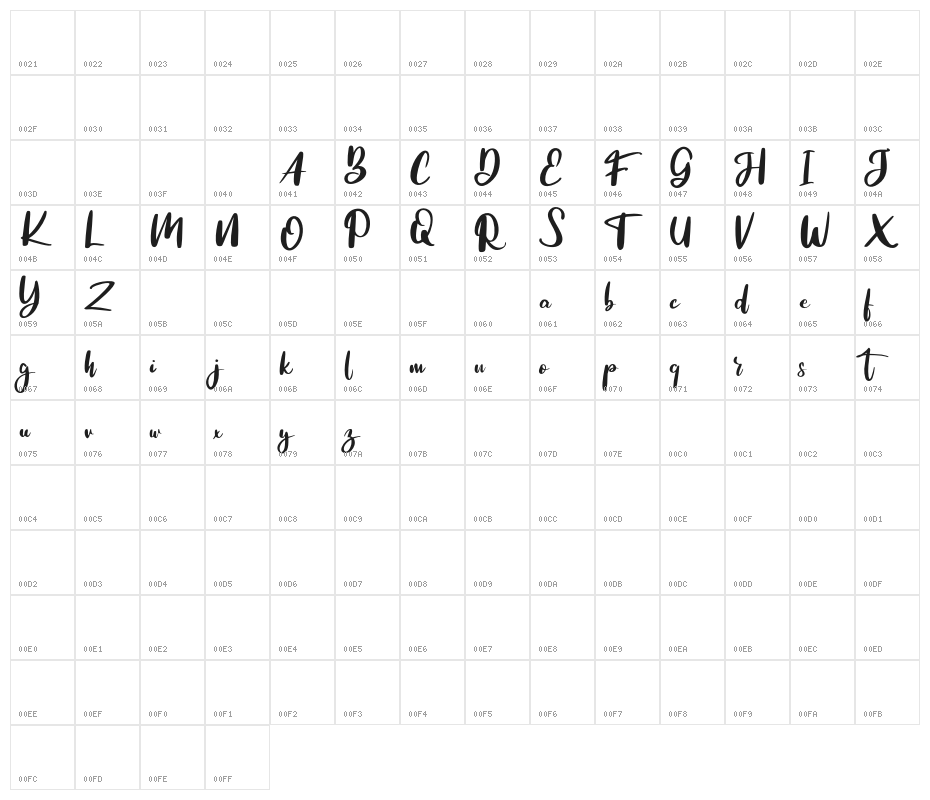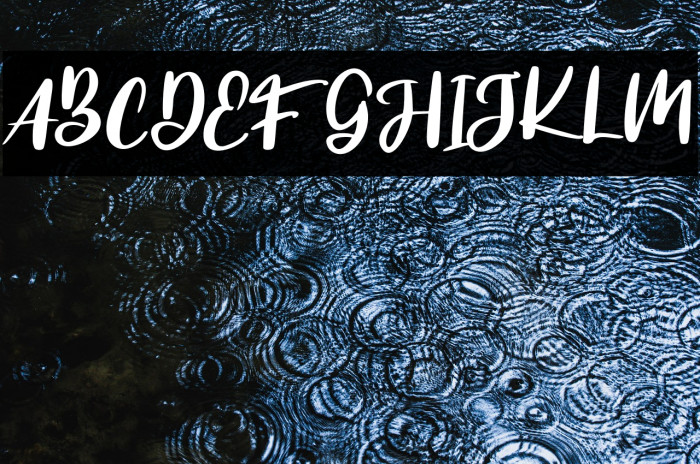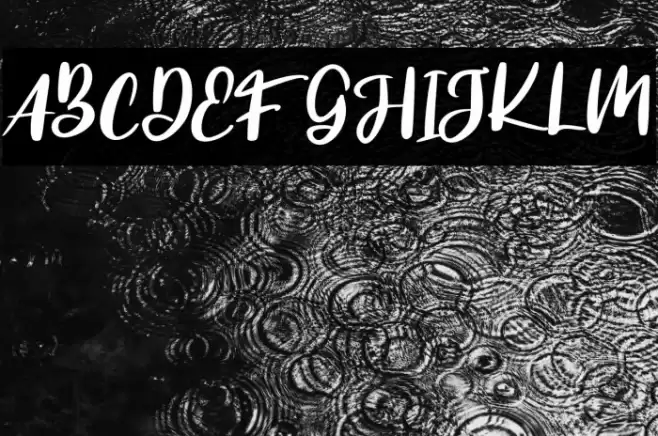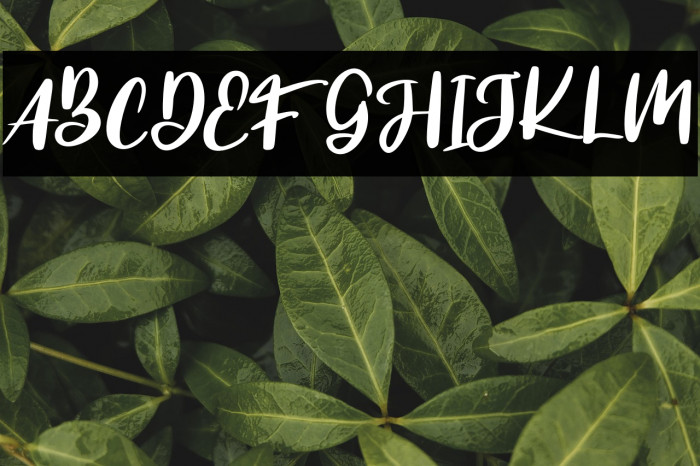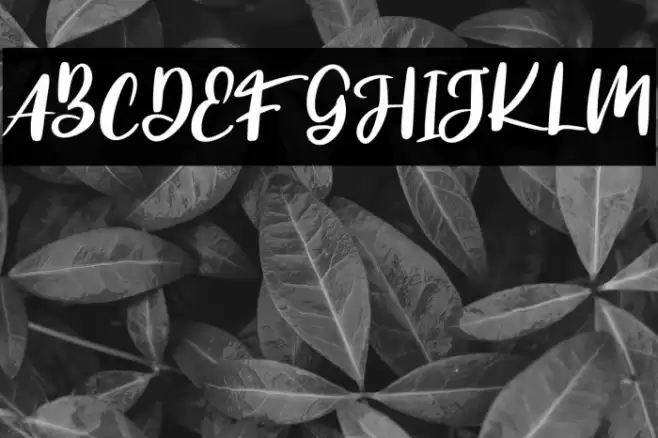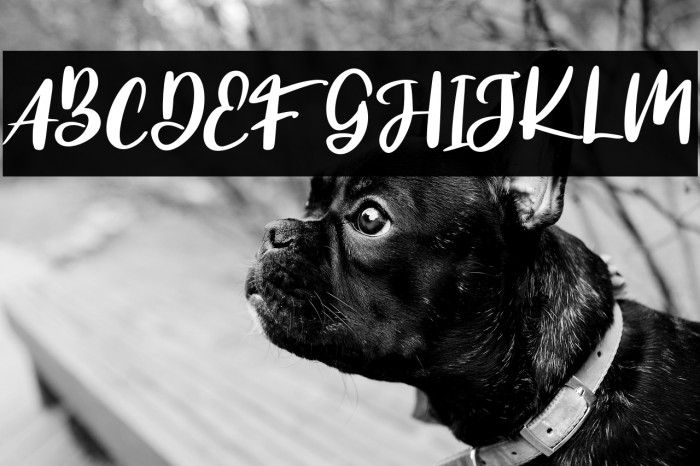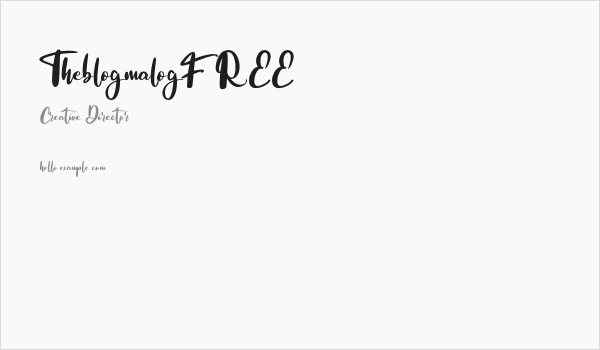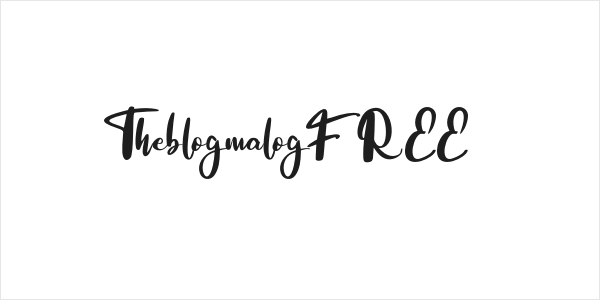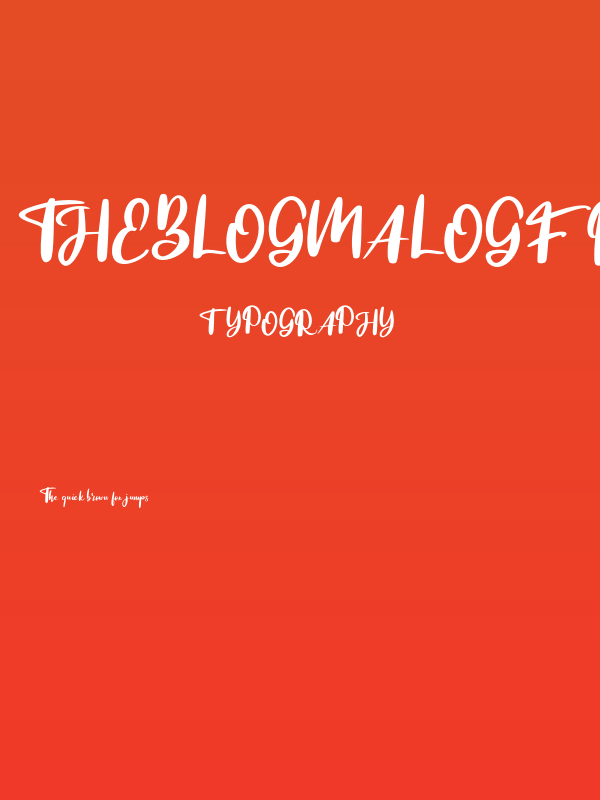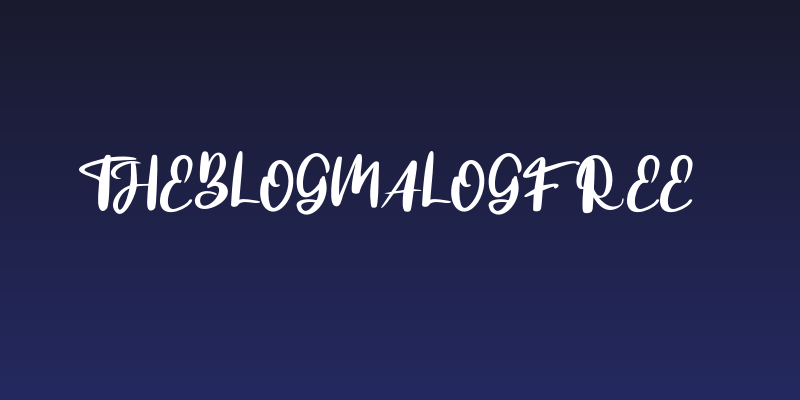
TheblogmalogFREE Font
TheblogmalogFREE Description
This font features a lively and expressive script style, characterized by its flowing, cursive letterforms. The uppercase letters are bold and dynamic, with a playful yet elegant flair. The lowercase letters maintain a consistent rhythm, offering a harmonious blend of curves and loops. The font exudes a sense of creativity and spontaneity, making it ideal for projects that require a personal touch. Its overall appearance is both modern and artistic, with a handcrafted feel that adds warmth and personality to any design.
| Proposed Projects | This font is perfect for wedding invitations, greeting cards, branding, and social media graphics. |